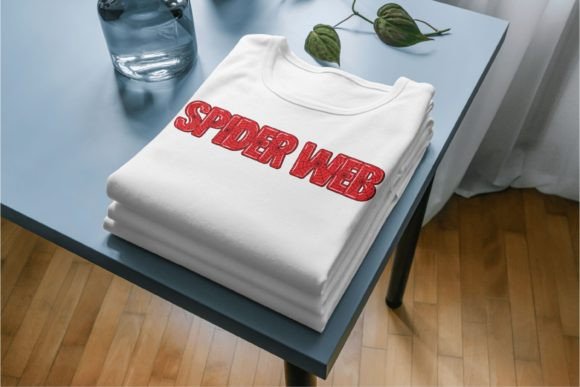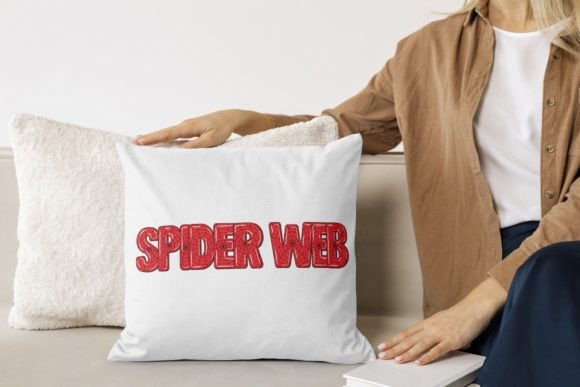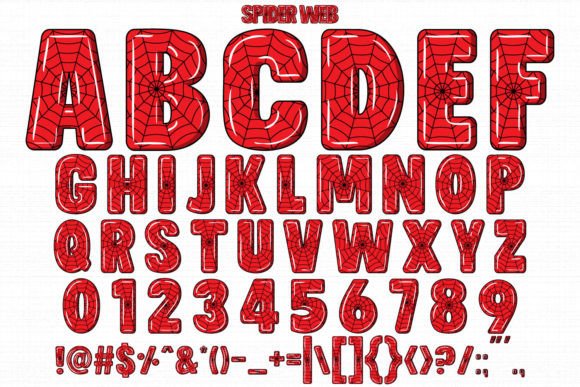
Spider Web Font: A Spooky Display Font for Halloween Crafts
About the Spider Web Font
Step up your design game with Spider Web Font, a font that exudes confidence and style. Spider Web is a color font with a Spider Web skin texture. This font is perfect for nature-themed designs and for children’s projects. No matter the topic, this font will be an incredible asset to your fonts’ library, as it has the potential to elevate any creation.